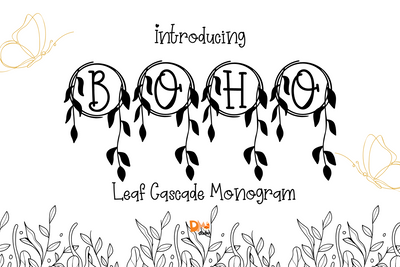
Leaf Cascade Monogram
Leaf Cascade Monogram – Elegant Serif Monogram Font with Cascading Botanical Elements
Leaf Cascade Monogram is a sophisticated serif monogram font featuring elegant uppercase letters adorned with gracefully falling leaf arrangements. Designed to evoke the beauty of nature in motion, this font brings a serene, botanical elegance to personalized designs, wedding stationery, and seasonal branding.
Cascading Leaf Motifs: Delicate hand-drawn leaves flow downward, adding movement and natural beauty.
Timeless Serif Base: Strong serif letterforms provide classic structure and high legibility.
Designed for Monograms: Perfectly styled for single initials, duograms, and decorative emblems.
Ideal For: Autumn wedding designs, name monograms, nature-themed branding, Cricut crafts, packaging, and gift tags.